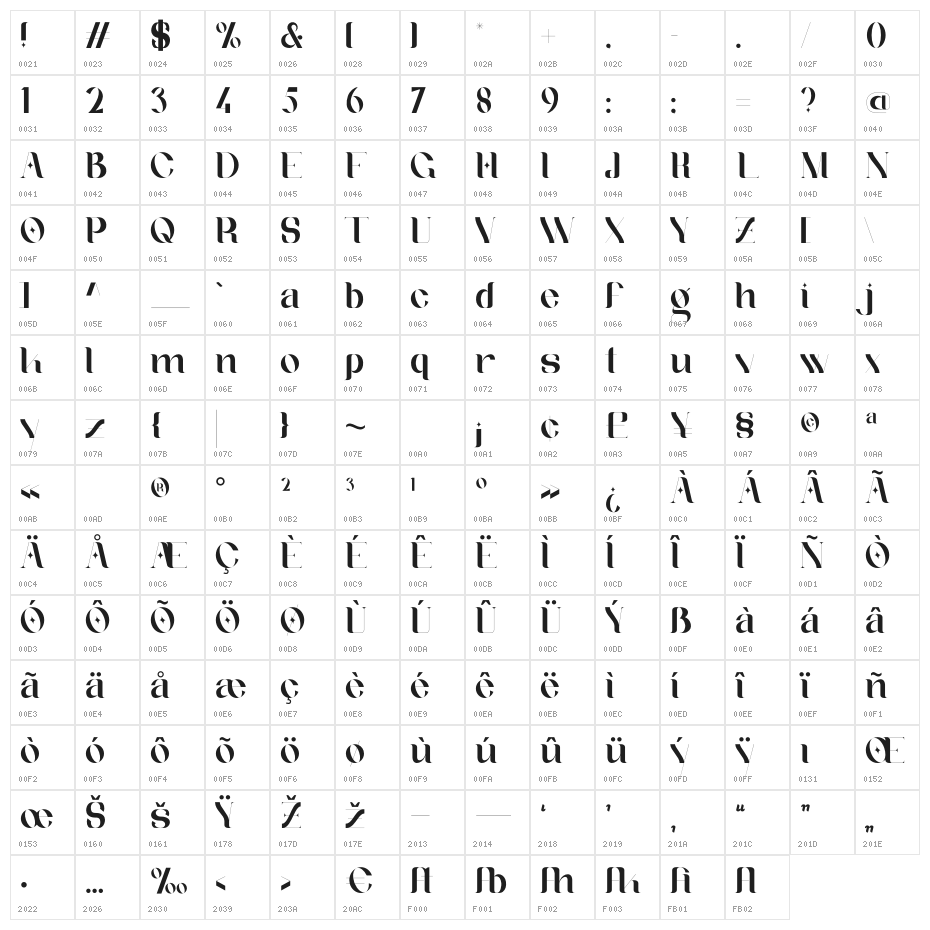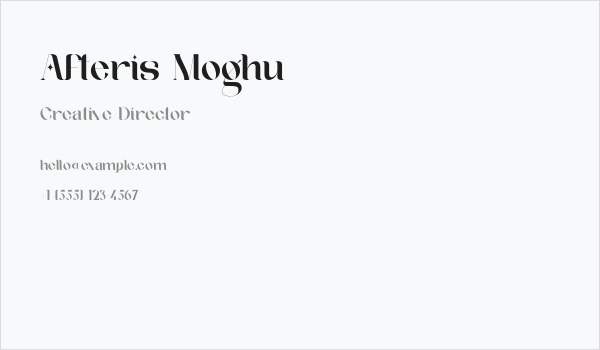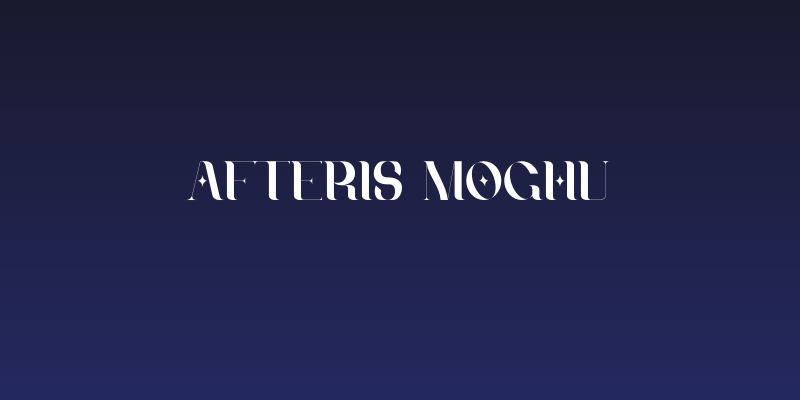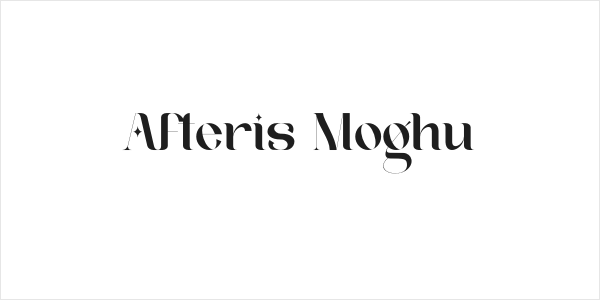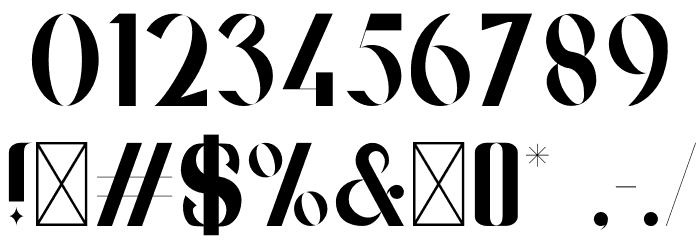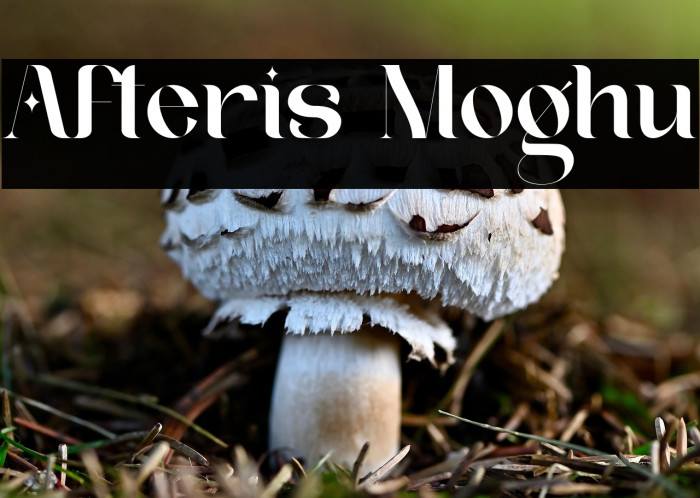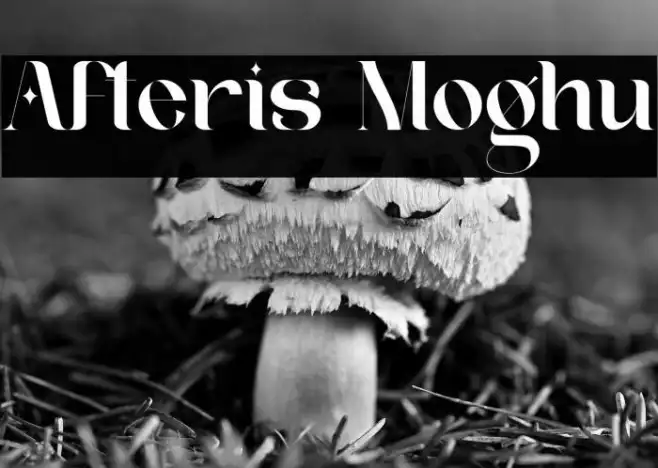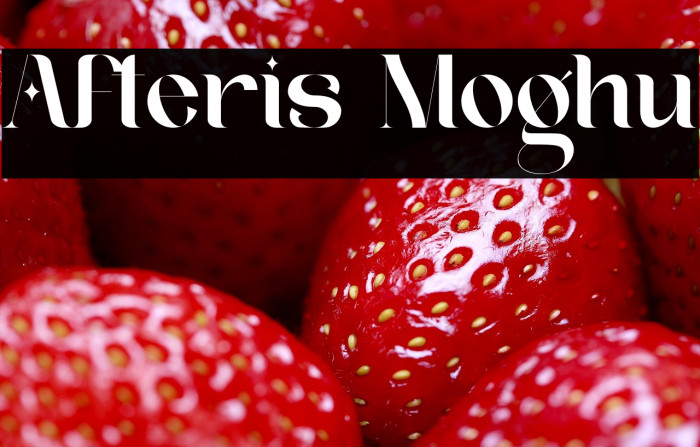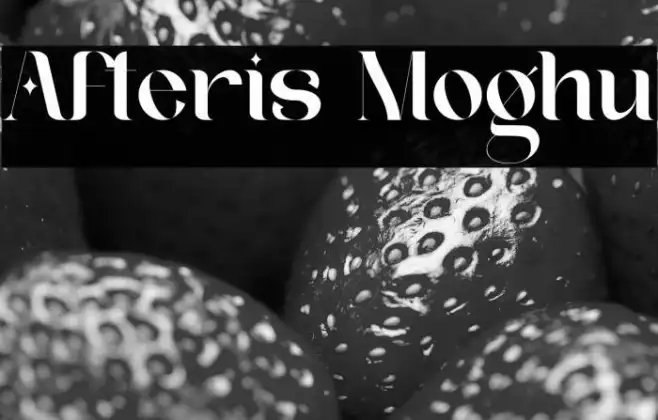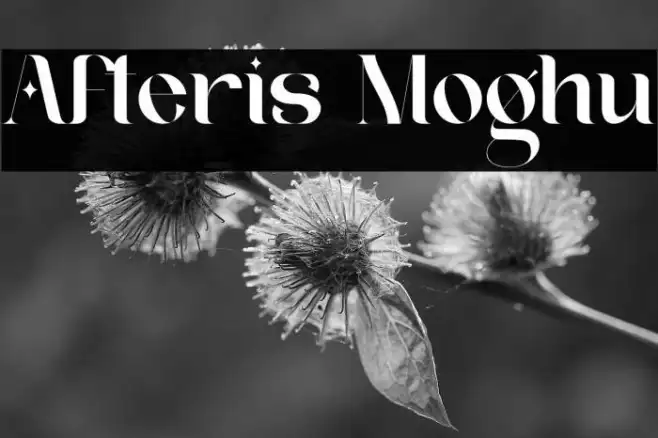
Afteris Moghu Font
Afteris Moghu Description
This font features a striking and modern design with high contrast between thick and thin strokes. The uppercase letters are bold and dramatic, with unique geometric elements that add a contemporary flair. The lowercase letters maintain a similar style, offering a cohesive look across different text sizes. Numbers and special characters are designed with the same attention to detail, ensuring consistency throughout. The font's overall aesthetic is both artistic and functional, making it suitable for a variety of creative projects.
| Proposed Projects | Ideal for branding, advertising, and editorial design where a modern and artistic touch is desired. |